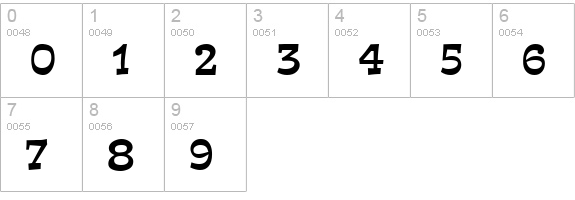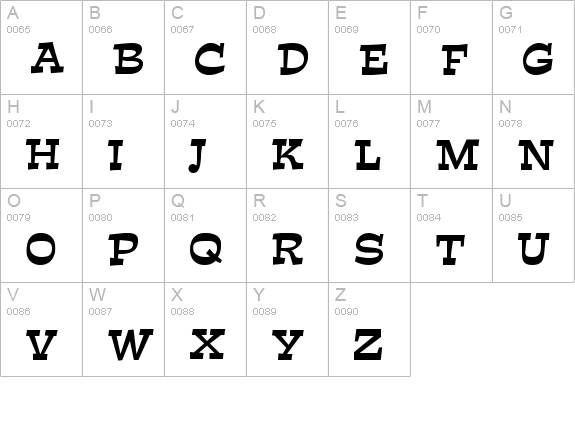
TR Expo Font Details
TR Expo is a versatile and modern font that is perfect for a wide range of design projects. With its clean lines and contemporary aesthetic, this font is sure to make a statement. Whether you're creating a logo, designing a website, or working on a print project, TR Expo is a great choice. The best part? TR Expo is available for free download at FontsMarket.com. This means you can start using this stylish font in your projects right away without worrying about any additional costs. Don't miss out on the opportunity to enhance your designs with TR Expo today!